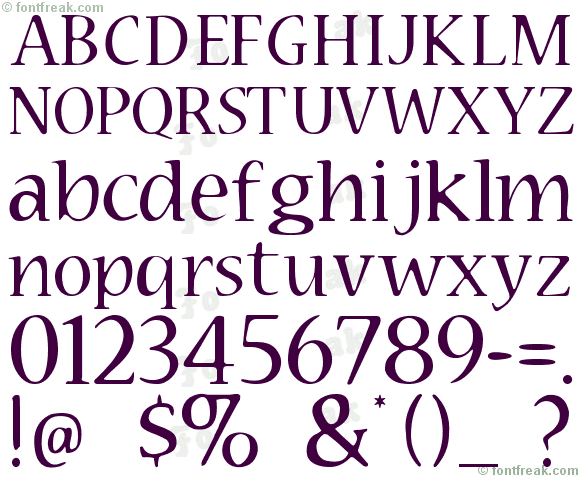
Technomage
The Technomage font, created by Allan Matthews in 2002, is a striking display typeface that elegantly merges modernity with classic design elements. This freeware font stands out for its unique aesthetic, characterized by a medium stroke weight and moderate contrast that contribute to its legibility and visual appeal. The letterforms exhibit smooth curves and subtle serifs, lending a sense of sophistication and creativity. The spacing between characters is well-balanced, ensuring that each letter is distinct and contributes to a cohesive overall look.
Technomage is particularly well-suited for a variety of design projects. Its stylish flair makes it an excellent choice for movie posters, where it can capture attention and convey thematic elements. Additionally, it works beautifully in branding materials, making it ideal for small business owners looking to create memorable logos or promotional materials. Graphic designers will also find Technomage perfect for creating eye-catching restaurant menus or event flyers that require a blend of elegance and readability. Content creators can leverage this font for digital graphics and social media posts, ensuring their visuals stand out in crowded feeds.
The target audience for the Technomage font includes graphic designers, small business owners, and content creators who seek a distinctive typeface to elevate their projects. Its versatility and contemporary design make it appealing to those looking to make a statement.
What truly sets the Technomage font apart is its ability to blend traditional typography with a modern twist, making it suitable for a wide range of applications. With the Technomage font free download available, users can easily access this unique typeface and incorporate its charm into their creative endeavors, ensuring their designs remain fresh and engaging.